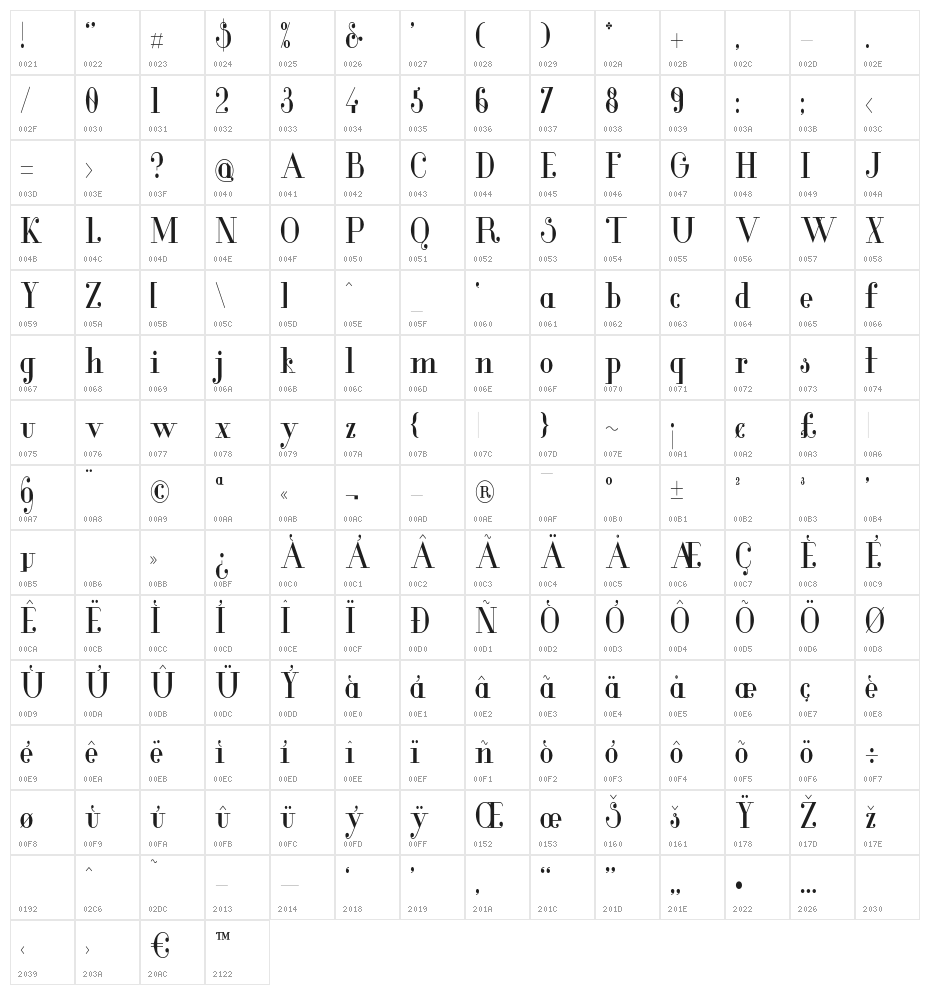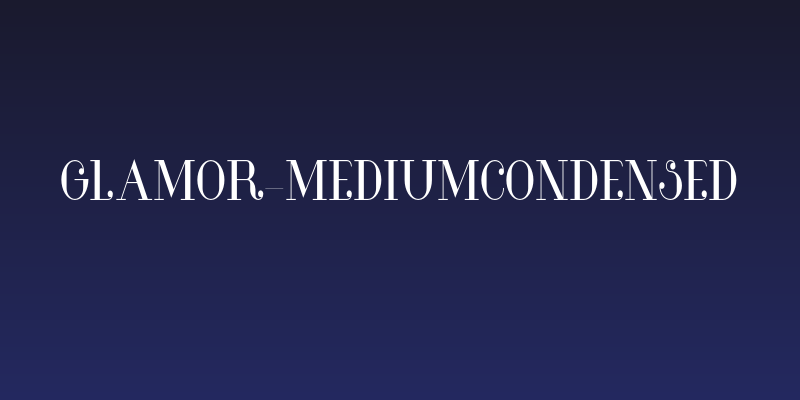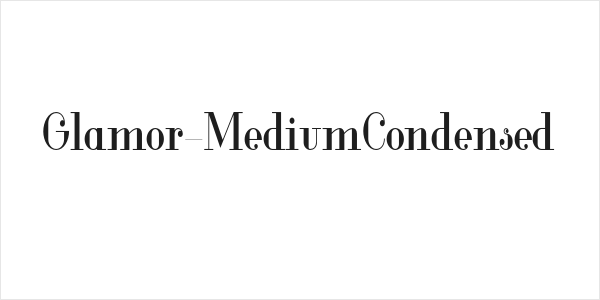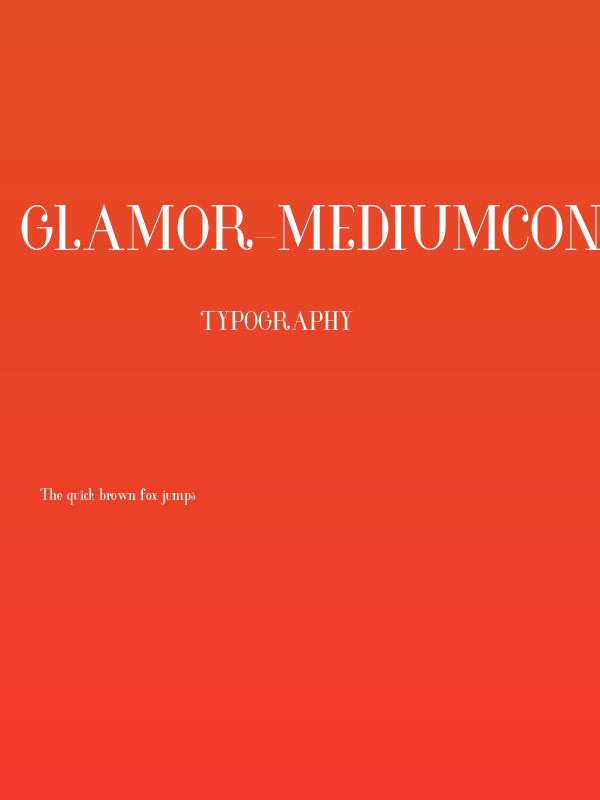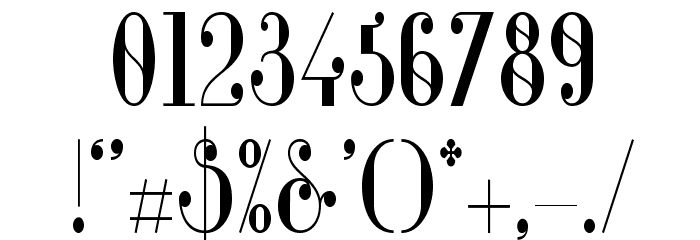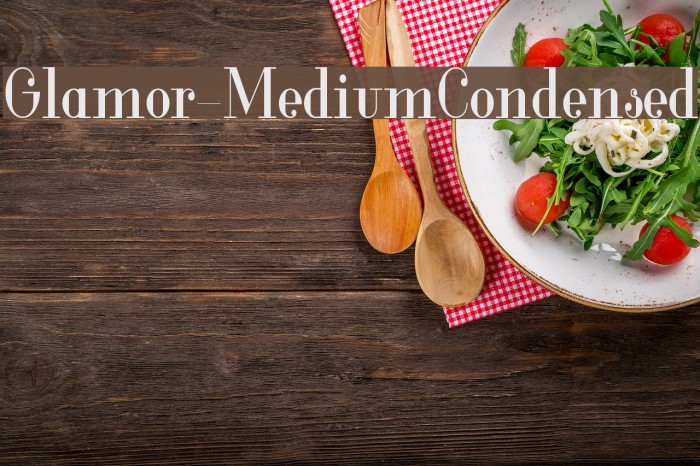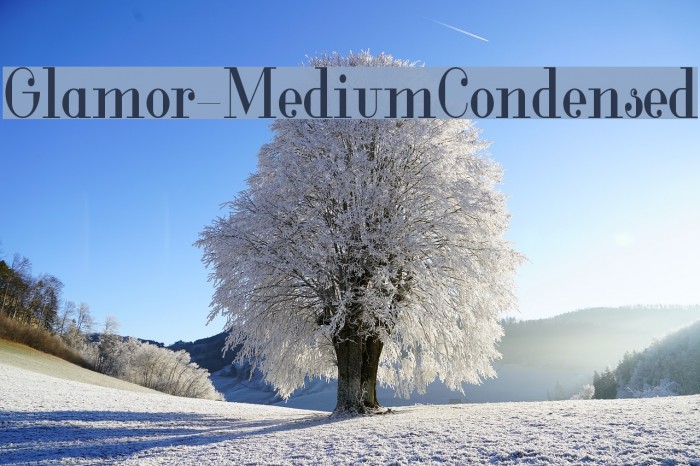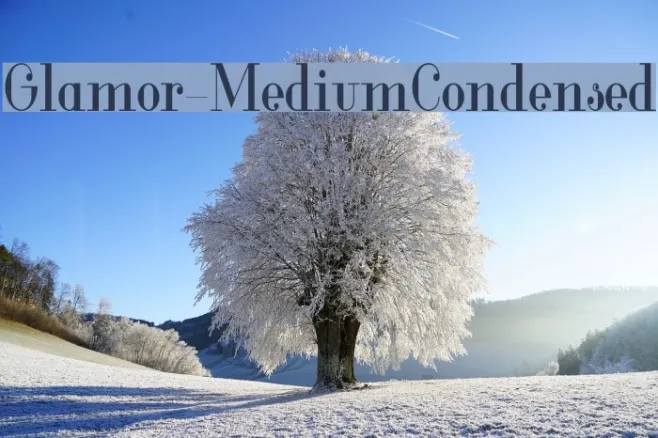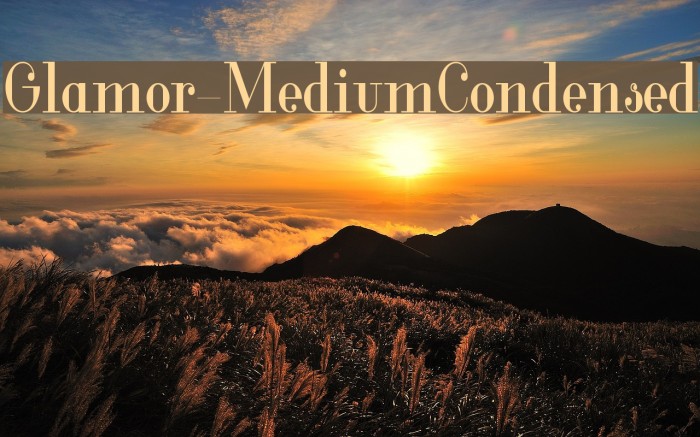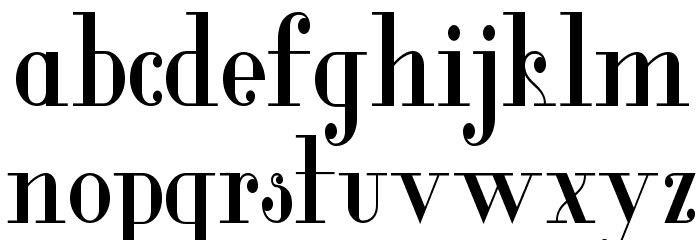
Glamor-MediumCondensed Font
Glamor-MediumCondensed Description
This font features a sophisticated blend of elegance and modernity, characterized by its tall, condensed letterforms and high contrast between thick and thin strokes. The uppercase letters exhibit a refined, elongated appearance with subtle serifs, while the lowercase letters maintain a consistent style that complements the uppercase. The numerals are distinct and stylish, following the same design principles. Special characters are crafted with attention to detail, enhancing the font's overall aesthetic. This typeface is ideal for creating a striking visual impact, combining traditional serif elements with a contemporary twist.
| Proposed Projects | Ideal for luxury branding, editorial design, fashion magazines, and elegant invitations. |